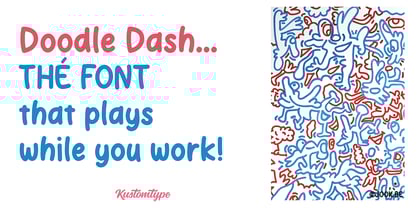
Doodle Dash
by Kustomtype
The Doodle Dash Font Family was designed by Coert De Decker and published by Kustomtype. Doodle Dash contains 8 styles and family package options.
Doodle Dash, is a vibrant and playful font designed by Coert De Decker, also known in the font world as Kustomtype. This whimsical script embodies the spirit of spontaneous creativity, making it the perfect choice for graphic design, advertising, and any project that needs a touch of fun. With four weights—Light, Regular, Medium, and Bold—and italic versions of each, Doodle Dash offers a total of eight versatile styles to elevate your designs.
Inspired by the carefree nature of doodling, Doodle Dash captures the essence of artistic expression. Its lively curves and playful swirls bring energy and charm to any project, whether it’s for branding, invitations, or digital art. To promote this exciting new font, Kustomtype teamed up with the talented Belgian artist Joke Neyrinck, known far and wide as jokedoodle.
Whether you're designing for print or digital, Doodle Dash is your go-to font for adding a splash of creativity and personality. Let your projects come alive with the joyful spirit of Doodle Dash!
Designers: Coert De Decker
Publisher: Kustomtype
Foundry: Kustomtype